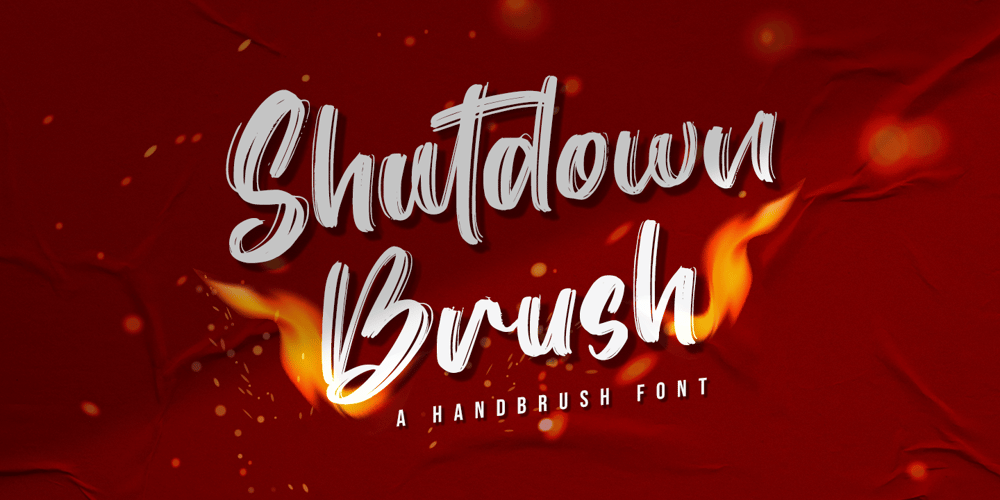
Shutdown Brush Font Family was designed by Hayinah and published by Rockboys Studio. Shutdown Brush contains 1 styles and family package options. Shutdown Brush is textured brush font using a contemporary approach to design. Handmade naturally with an irregular baseline, Amithen is suitable for a number of display or decorative designs.